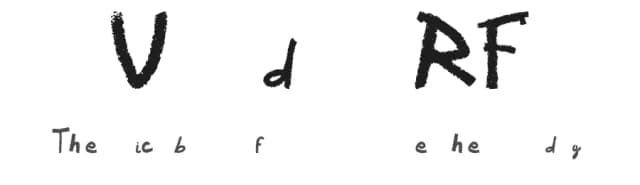
About Computer's Heart Font
This is what your computer does with your markers when you aren't around...
Computer's Heart Font is a script font that shines as a display or heading face. Pair it with a clean sans-serif or serif font for body text β the contrast creates a clear hierarchy while the two styles stay balanced and easy to read.
Computer's Heart Font
by Malvolio